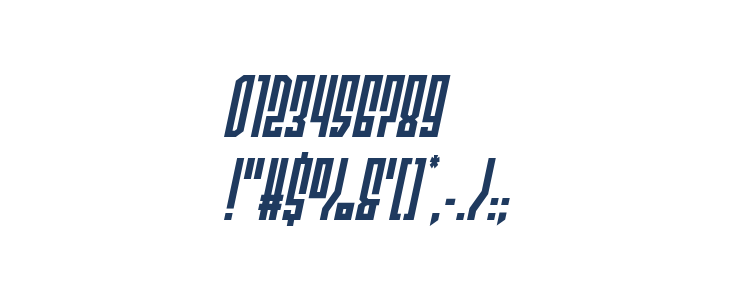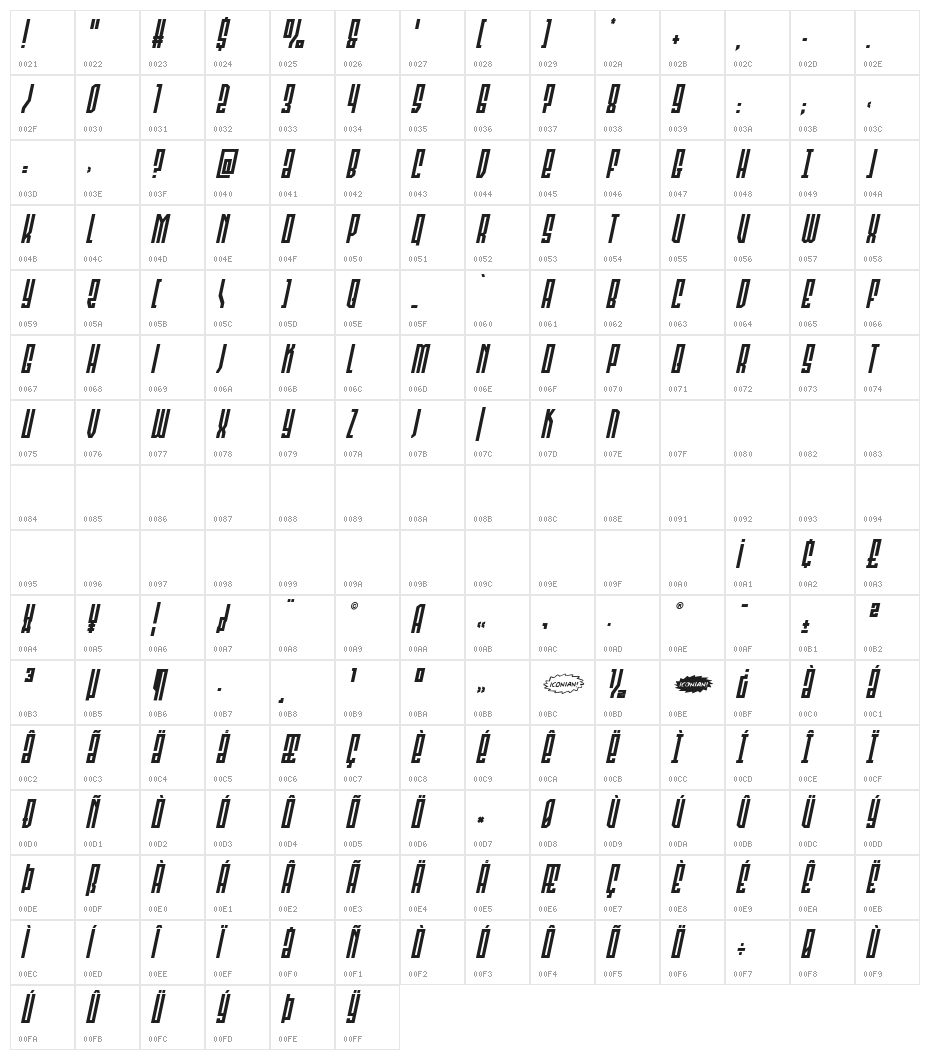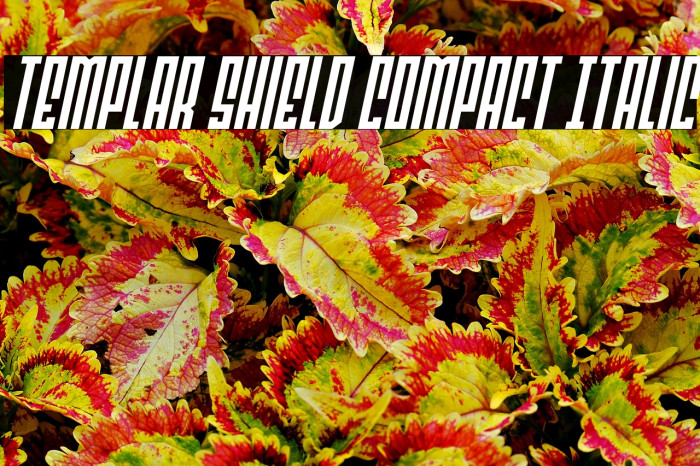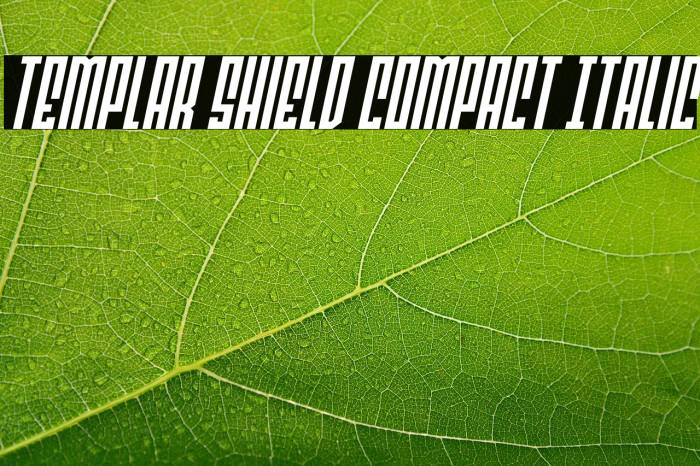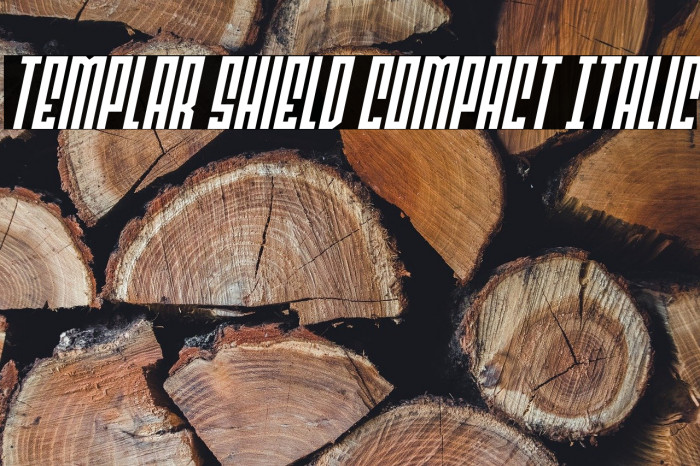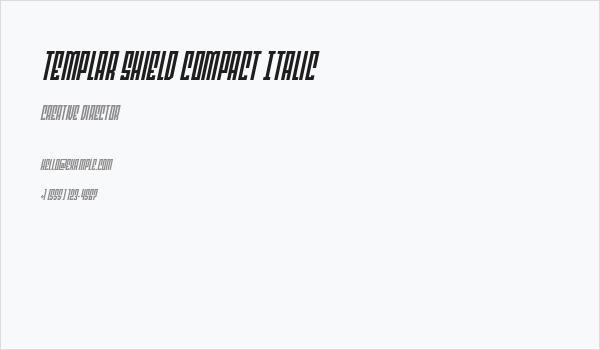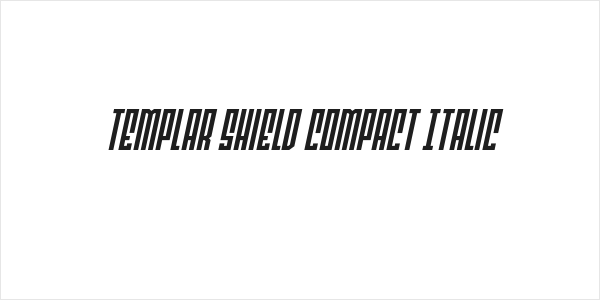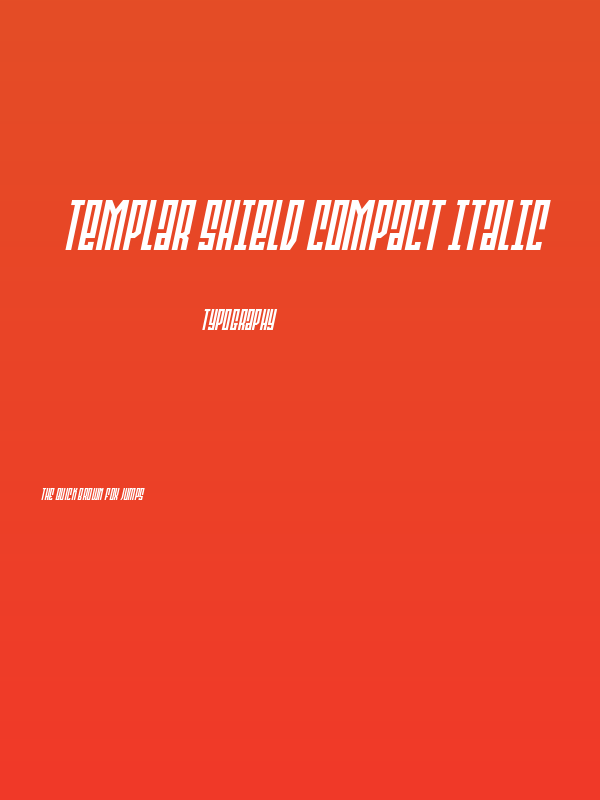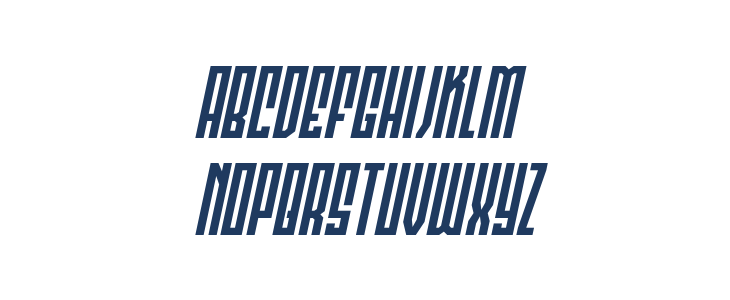
Templar Shield Compact Italic Font
Templar Shield Compact Italic Description
This font features a bold and dynamic style with a strong italic slant, giving it a sense of motion and urgency. The characters are compact and tightly spaced, enhancing its impactful appearance. The angular design and sharp edges contribute to a modern and aggressive aesthetic, making it suitable for attention-grabbing headlines or branding. The uppercase and lowercase letters maintain a consistent style, while the numerals and special characters are designed to match the overall theme. This font is ideal for projects that require a bold statement and a contemporary look.
| Proposed Projects | Ideal for sports branding, action movie posters, dynamic logos, and edgy editorial design. |